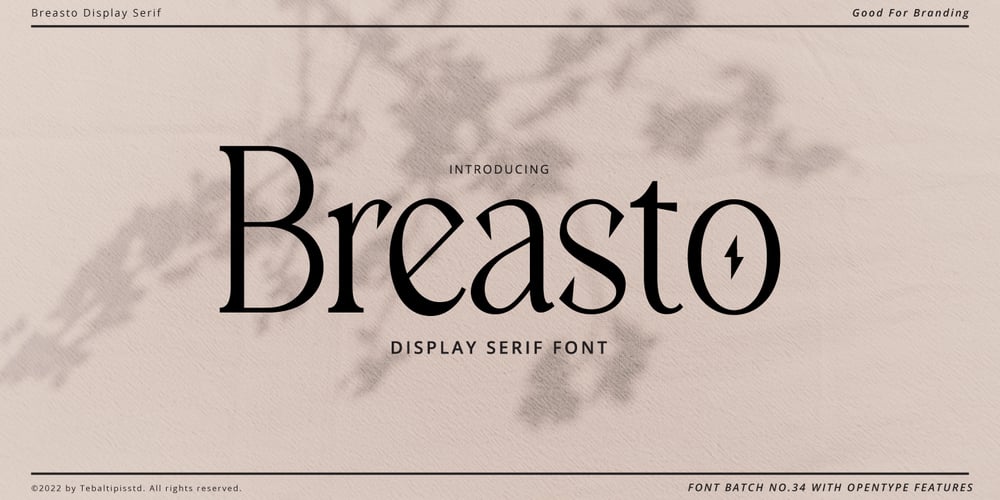
Breasto Display Font Family was designed by Dzulka Elfira and published by Tebaltipis Studio. Breasto Display contains 1 styles and family package options. Breasto – Display Serif is a stylish font It has both modern and retro look. Comes with alternatives and ligatures, helps to create stunning logos, quotes, posts, blog posts. branding projects, magazine imagery, wedding invitations, and much more.WHAT’S YOU GET ? Permola TTF, OTF Unique Letterforms Works on PC & Mac Simple Installations Accessible in the Adobe Illustrator, Adobe Photoshop, Microsoft Word Fully accessible without additional design software. I really hope you’ll get pleasure using Pagers font and it will be perfect addition to your font collection! Contact me with an inbox message If you have any question. Thank you! Happy Creating.